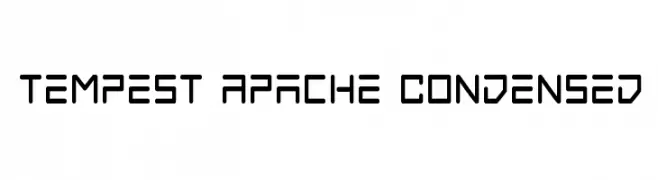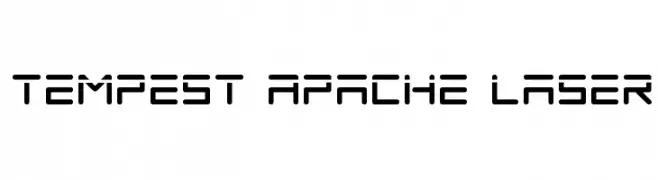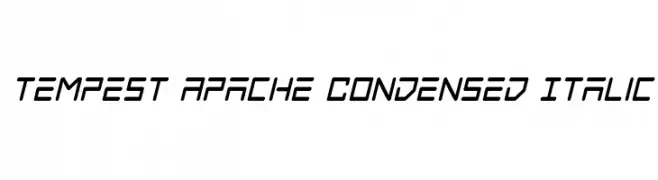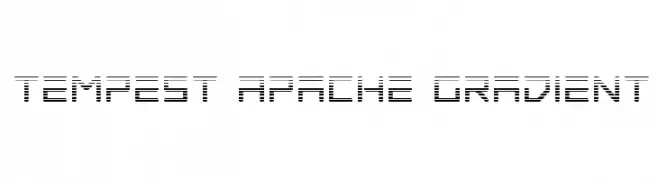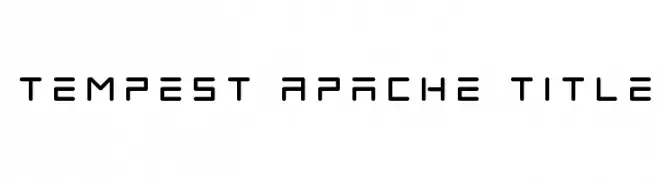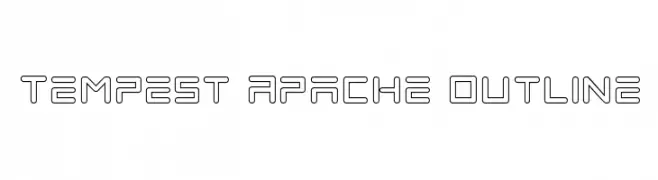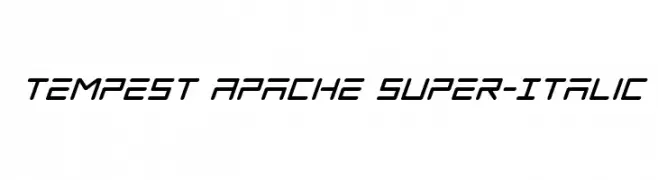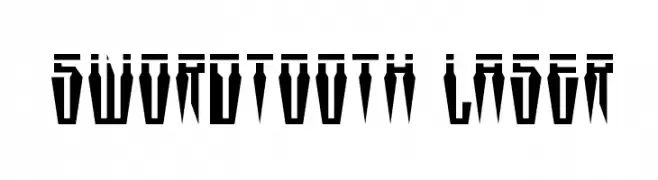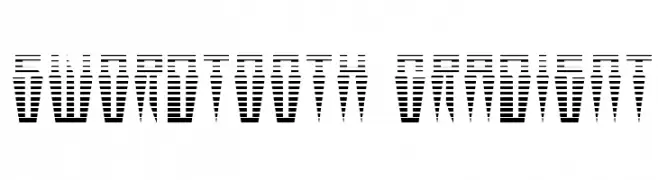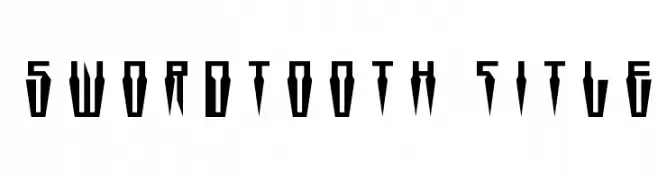
A futuristic, geometric font with a condensed and technical style.
A futuristic, geometric font with angular and sharp edges.
A dynamic, angular, condensed italic font with a modern, geometric style.
A modern, geometric outline font with an italic slant and angular design.
A futuristic, gradient-lined font with a digital, sci-fi aesthetic.
A futuristic, geometric font with angular edges and a monospaced appearance.
A modern, semi-italic font with geometric and angular characters.
A modern, geometric outline font with a futuristic and technical style.
A modern, italicized font with a sleek, angular design and a futuristic aesthetic.
A bold, angular font with a futuristic, laser-cut design.
A bold, modern font with a gradient effect and sharp, sword-like edges.
A bold, angular font with sharp, blade-like edges and a strong geometric influence.
A sharp, italic font with bold, angular characters and a dynamic style.
A bold, angular font with sharp, sword-like edges for a fierce look.
A sharp, angular font with a dynamic, warped italic style.
A sharp, angular, and condensed italic font with a fierce, dynamic style.
A bold, angular font with sharp, sword-like edges for striking visual impact.
A bold, geometric font with a halftone pattern and sharp, angular lines.
A bold, angular font with sharp serifs and a dynamic, slanted style.
A bold, angular font with sharp, sword-like edges and an expanded width.
A bold, italicized font with a halftone effect and futuristic style.
A bold, italicized font with sharp, angular edges and high contrast.
A bold, italicized font with sharp angles and high contrast, perfect for impactful designs.
A bold, angular font with sharp edges and a semi-italicized style.
A bold, angular, and italicized font with sharp edges and high contrast.
A modern, gradient italic font with a dynamic, futuristic style.
A bold, angular font with a condensed, sword-like design.
A bold, angular font with sharp, blade-like edges for a modern, edgy look.
A bold, angular font with sharp, blade-like edges and a geometric style.
A bold, futuristic font with sharp, angular edges and an italic slant.
A bold, angular 3D italic font with a futuristic and dynamic style.
A bold, angular font with a sharp, warped design for a fierce look.
Bold, angular, and italicized font with a modern, edgy style.
A bold, angular 3D font with a futuristic and geometric design.
A bold, angular font with sharp, elongated points for a dramatic effect.